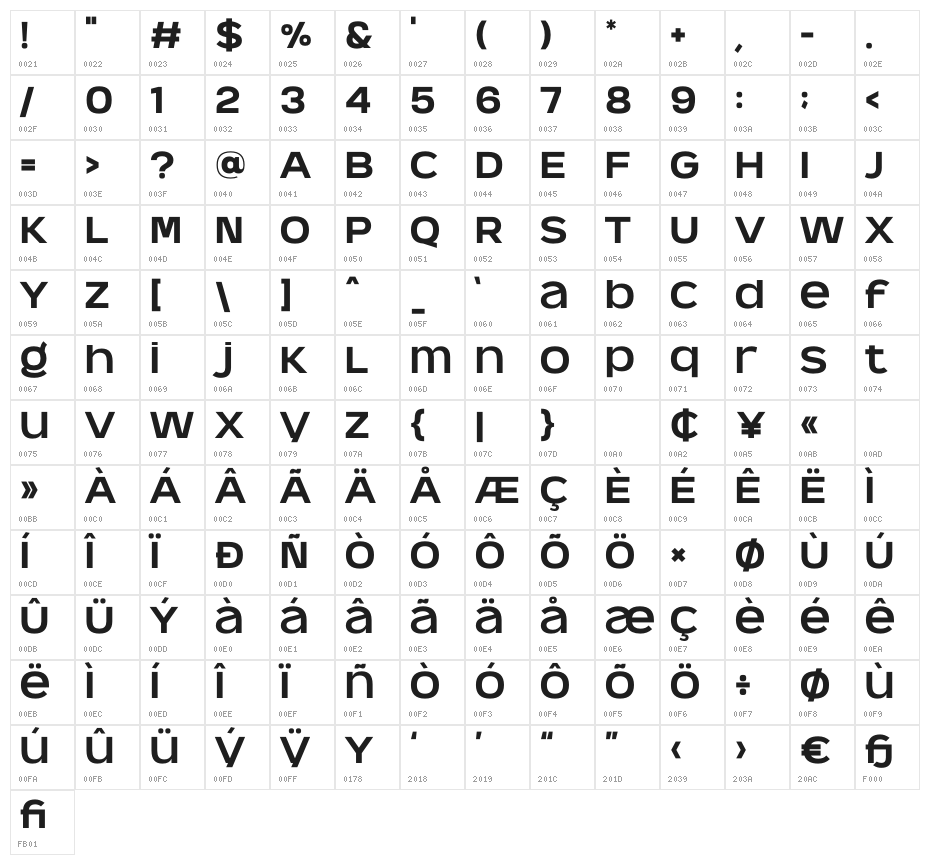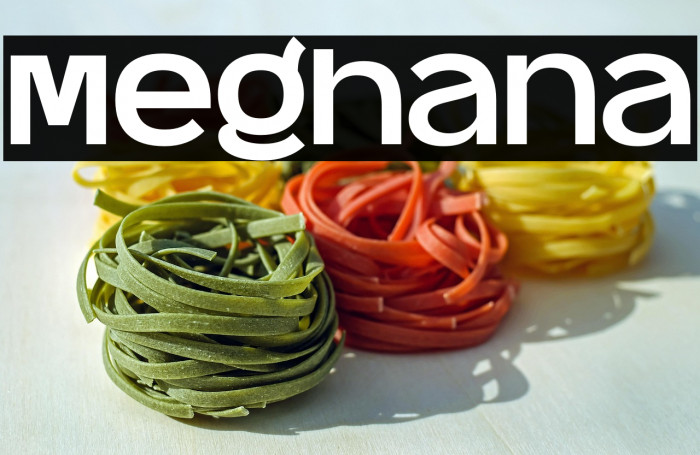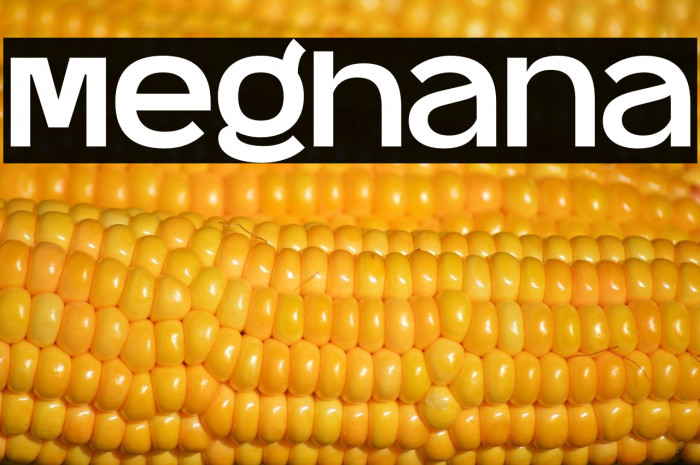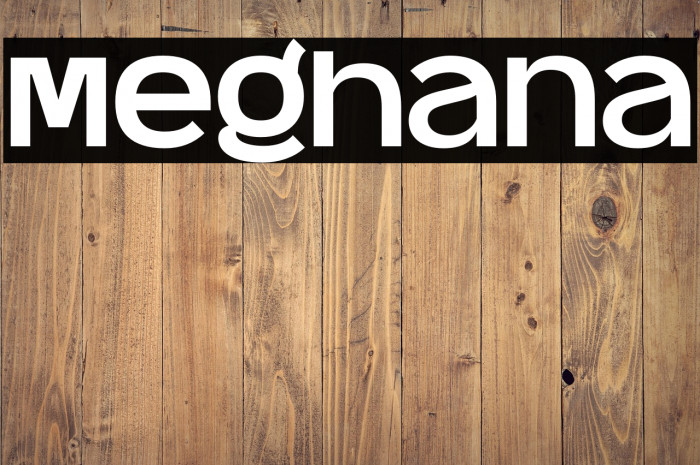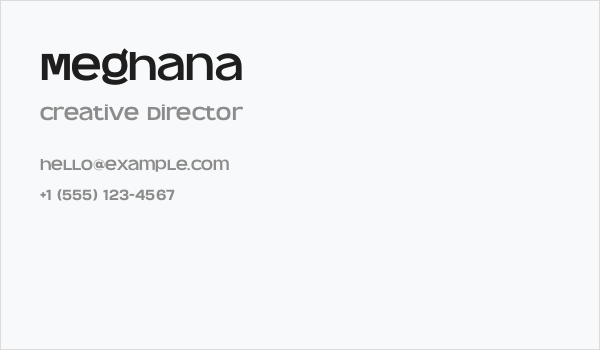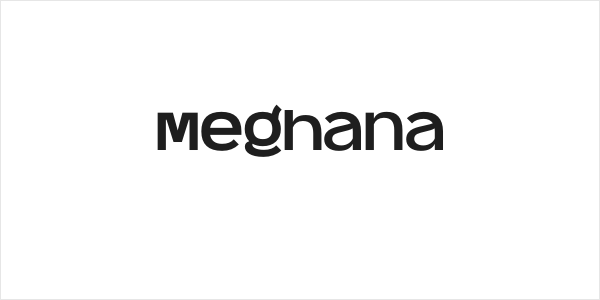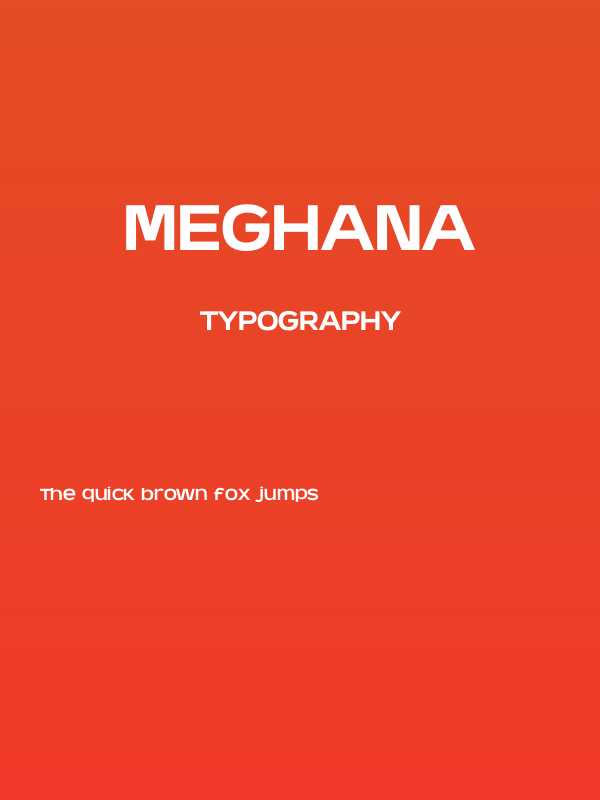
Meghana Font
Meghana Description
This font exhibits a clean and modern sans-serif style, characterized by its bold and uniform strokes. The uppercase and lowercase letters are well-proportioned, with a consistent height and width that contribute to its readability. The numerals are clear and distinct, matching the overall geometric design of the alphabet. Special characters are designed with the same attention to detail, ensuring they integrate seamlessly with the text. The font's simplicity and clarity make it suitable for a wide range of applications, from digital interfaces to print media.
| Use Case | Headlines, Logos, Digital Interfaces |
| Proposed Projects | Ideal for branding, advertising, web design, and editorial layouts. |